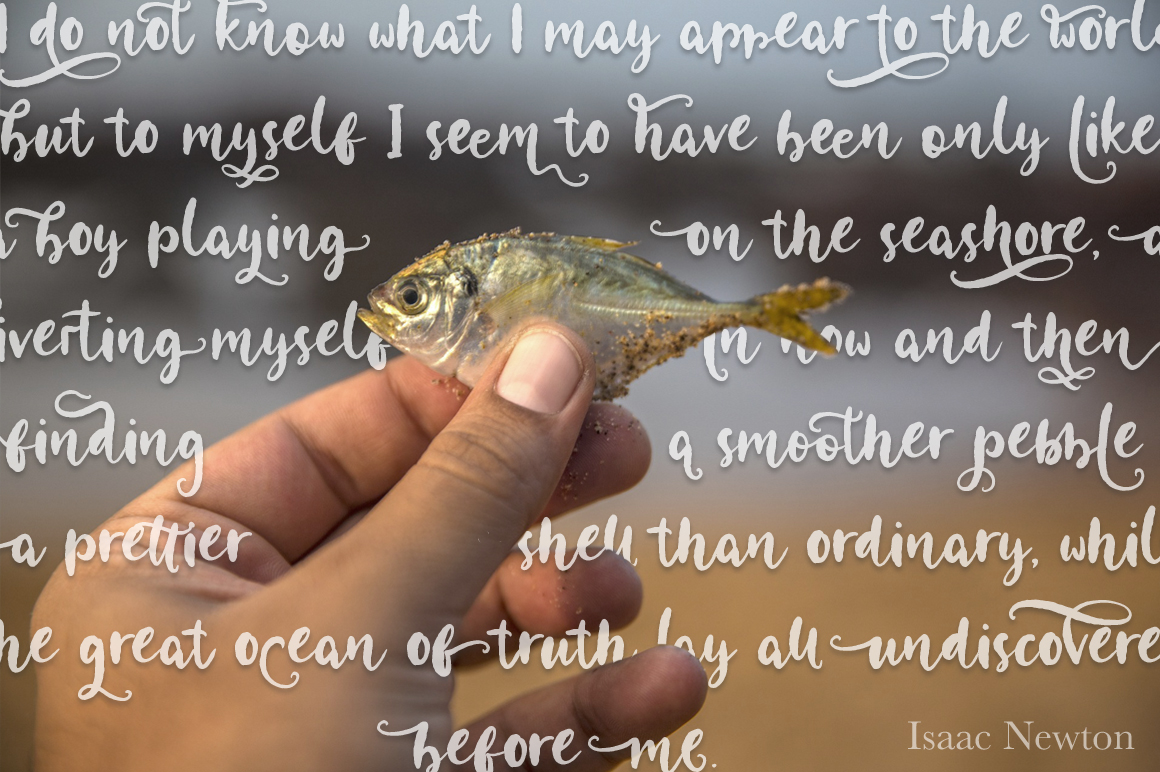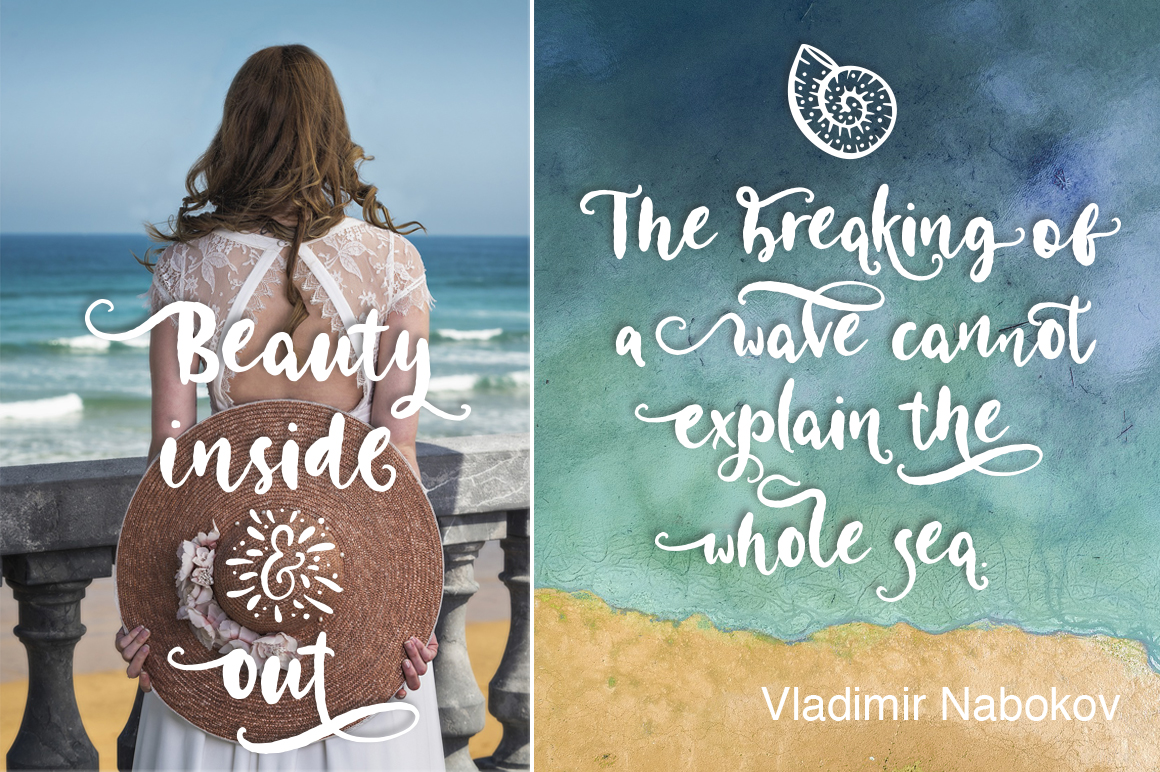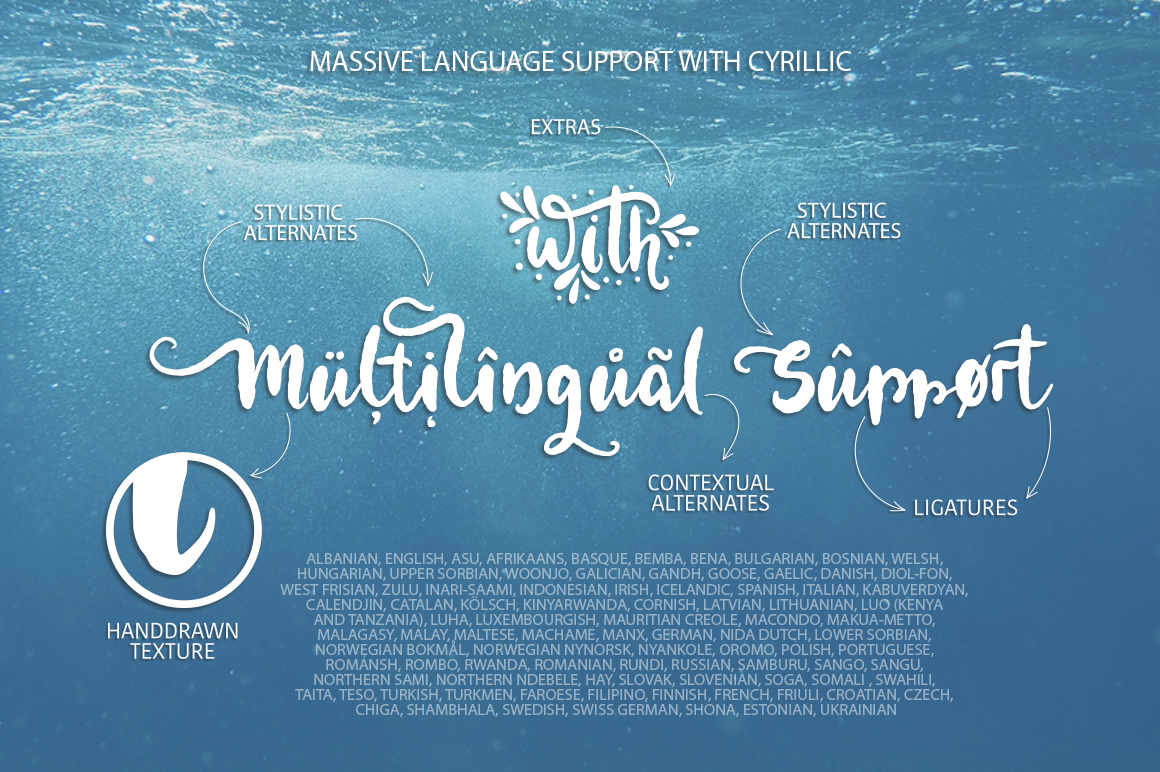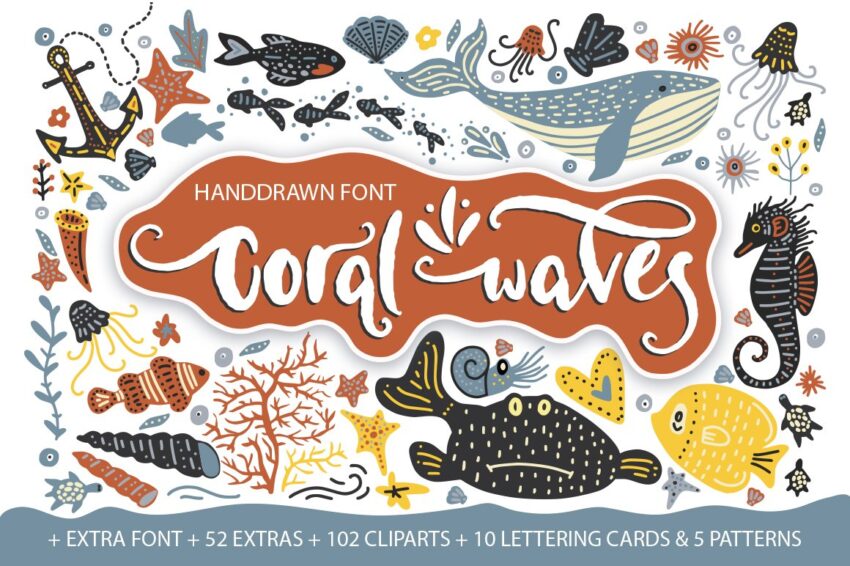
Introduction to Coral Waves Font
Coral Waves is an amazing, hand font that is friendly and carefree.
This font comes with a ton of stylistic alternates, as well as massive extras in your download for an amazing font pack -2 Fonts -102 Clip Art files -10 Lettering Cards -52 Extras -5 Patterns.
Key Features of Coral Waves Font